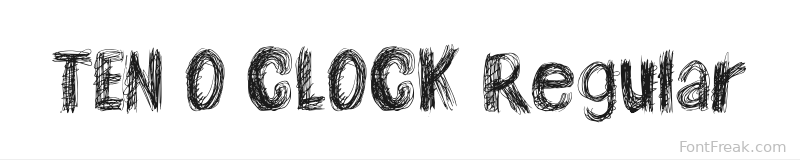
TEN O CLOCK Regular
About TEN O CLOCK Regular
TEN O CLOCK Regular by Cloutierfontes is a unique display font that captures a playful yet artistic essence. This font features a hand-drawn style that adds a touch of whimsy to any design project. Its distinct stroke weight varies throughout, creating a lively texture that feels both organic and approachable. The letters exhibit a moderate contrast, enhancing visibility while maintaining a relaxed aesthetic. The spacing is thoughtfully balanced, allowing for an easy reading experience without sacrificing the font's artistic flair.
This versatile typeface is ideal for various use cases. It can elevate wedding invitations with its charming, informal vibe, making them feel personal and inviting. For movie posters, TEN O CLOCK Regular can provide a bold statement, drawing attention and intrigue with its unique character. It also works wonderfully for restaurant menus, where its playful nature can reflect a casual dining atmosphere. Additionally, this font is perfect for branding projects aimed at small businesses, where a friendly and relatable image is essential. Content creators will find it useful for social media graphics, as it adds an engaging element to digital storytelling.
The target audience for this font includes graphic designers seeking a distinctive typeface for their projects, small business owners looking to enhance their branding, and content creators aiming to make their work stand out.
What sets TEN O CLOCK Regular apart is its ability to blend artistry with functionality. This font not only communicates messages effectively but also infuses a sense of personality into every design. For those interested in incorporating this playful style into their work, the TEN O CLOCK Regular font free download offers an excellent opportunity to enhance creativity without any cost.